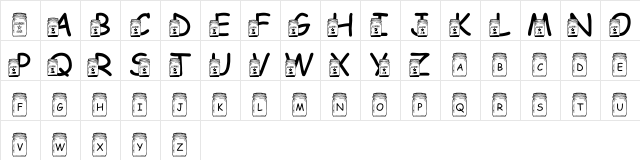
LMS Canning With The InLaws Regular
Design Context for LMS Canning With The InLaws Typeface
LMS Canning With The InLaws is a composed and adaptable typeface that performs quietly and consistently across a wide range of design contexts.